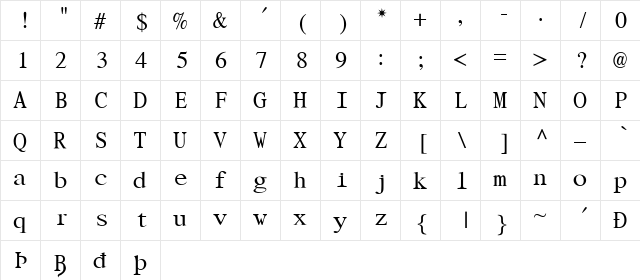
Cincinnatus Regular
Design Context for Cincinnatus Typeface
Cincinnatus takes a measured approach to typography — its balanced proportions and neutral character make it a reliable workhorse for both digital and print work.